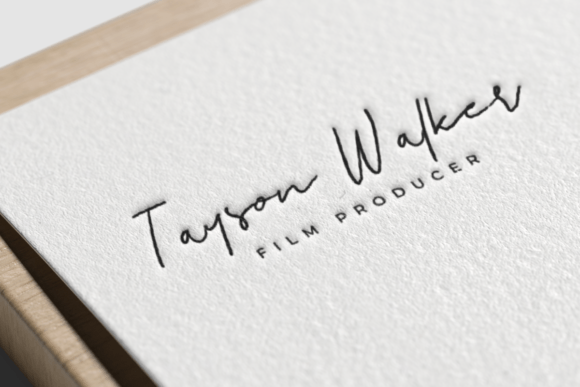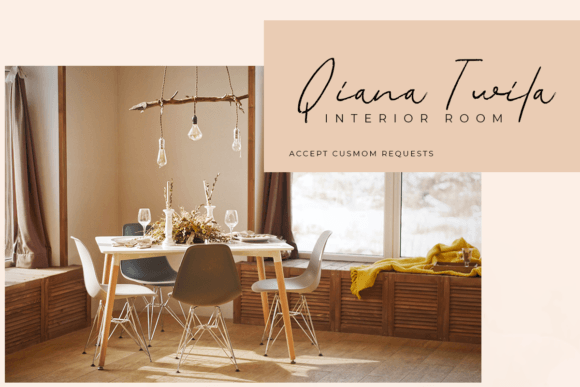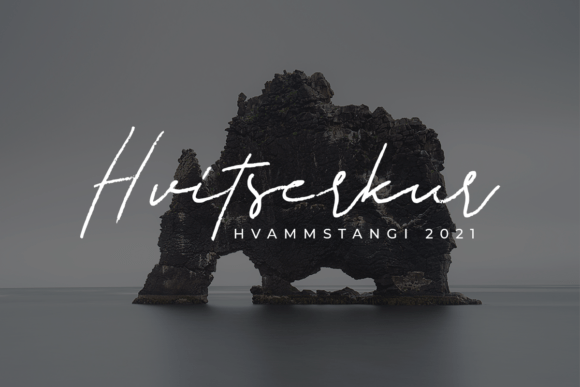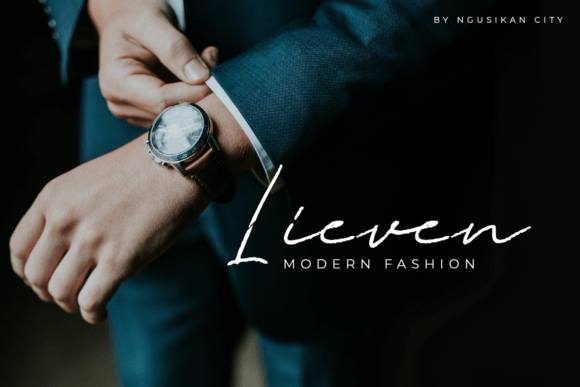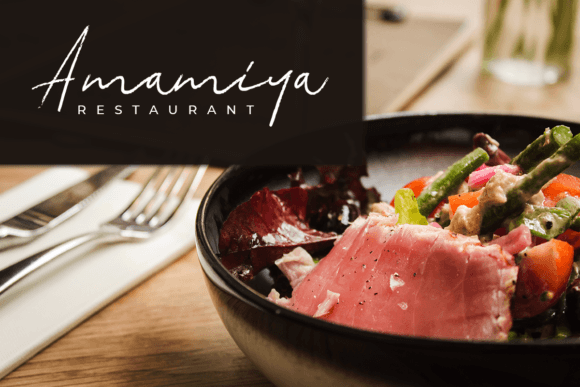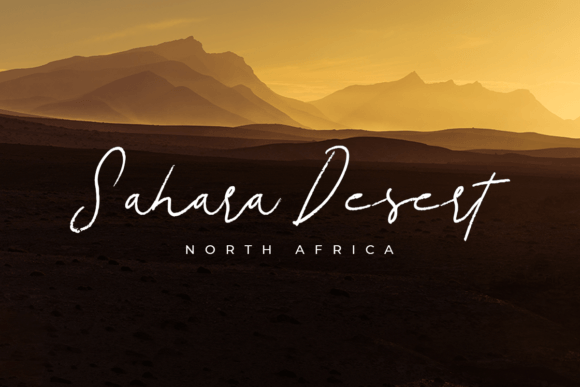
Introduction to Hilbert Font
Hilbert is a stylish and incredibly elegant script font.
Hilbert Font offers exceptional quality and versatility, making it a valuable addition to your design toolkit. Whether you’re creating for personal projects or commercial use, Hilbert Font delivers professional results.